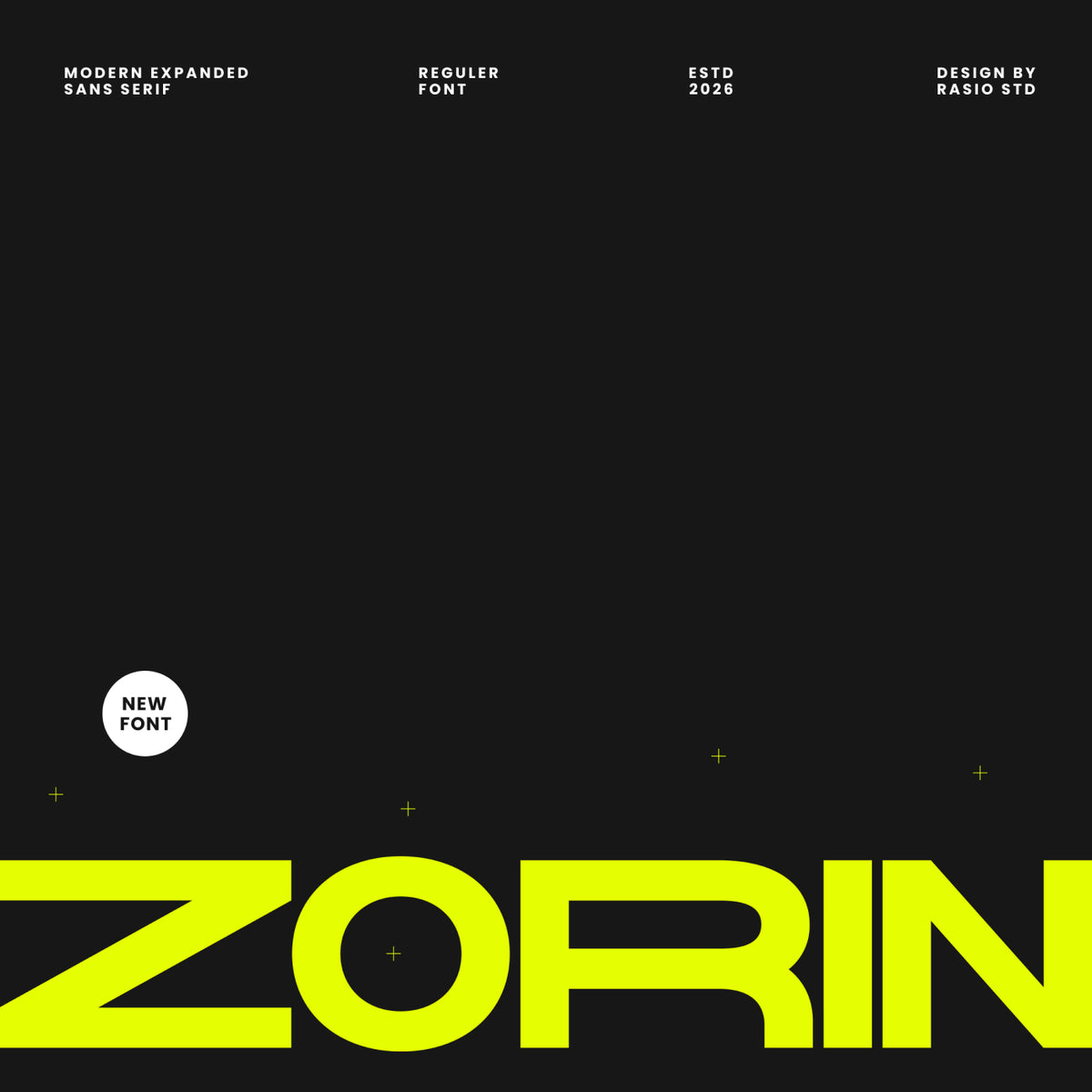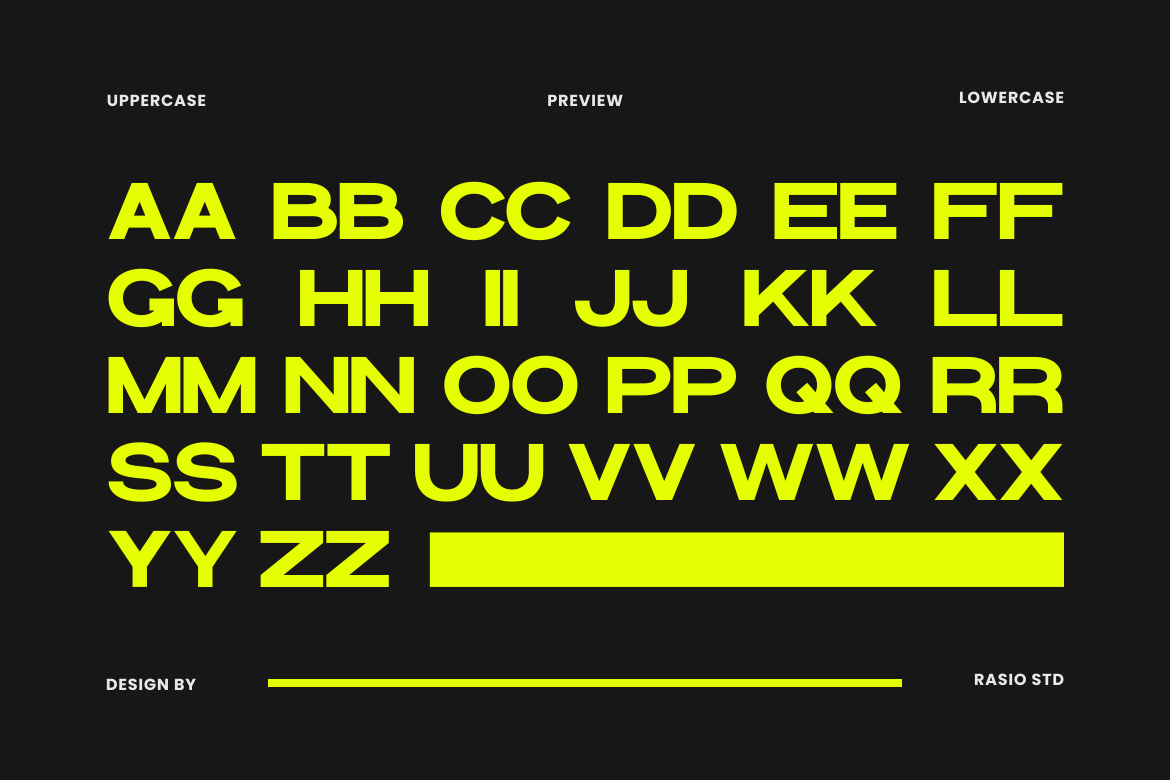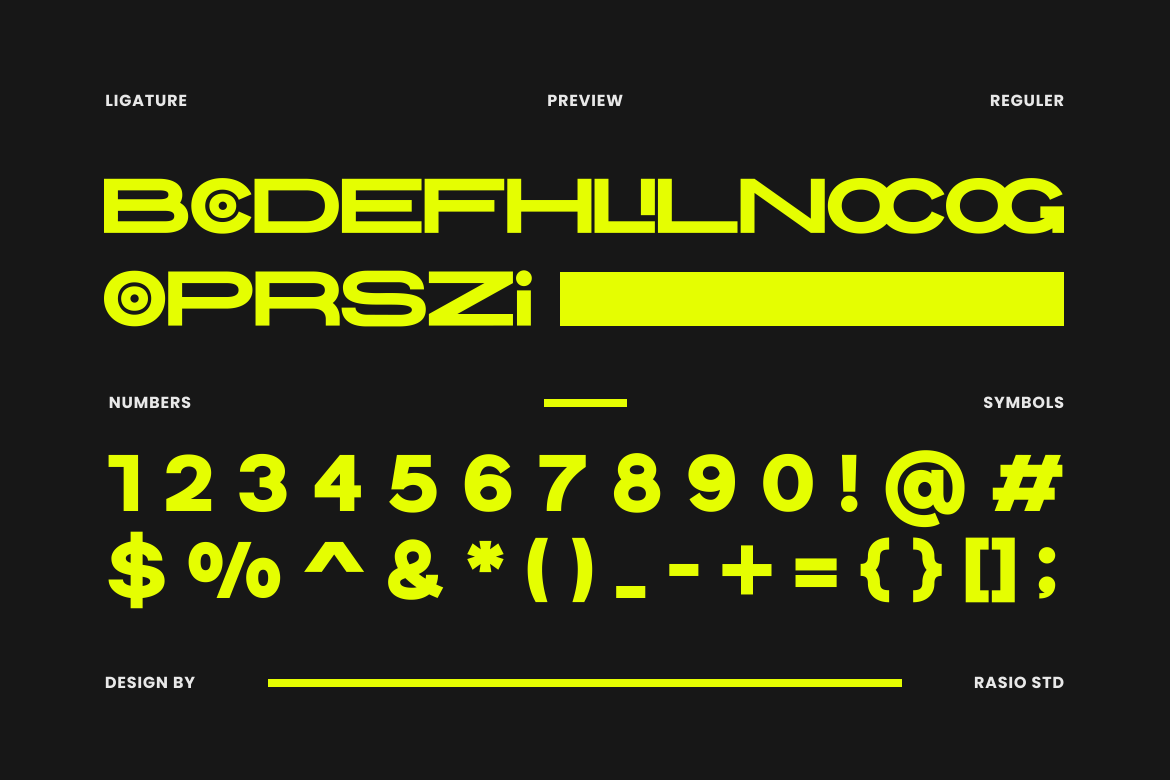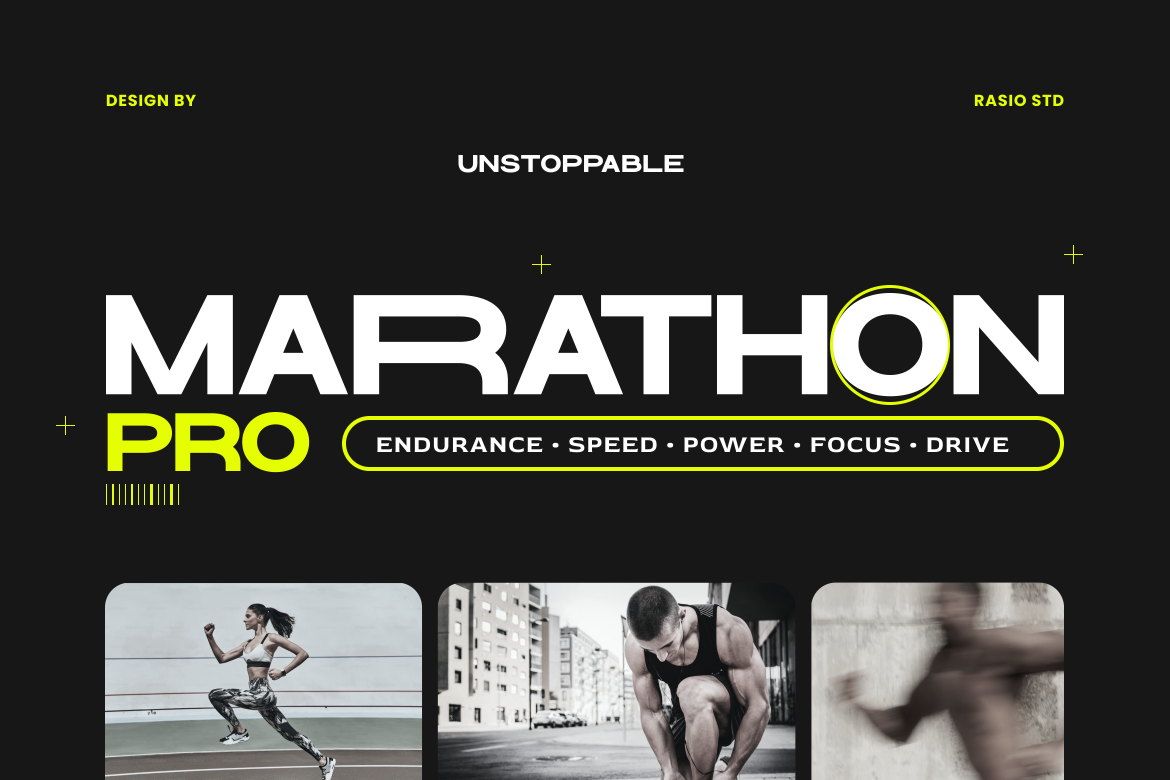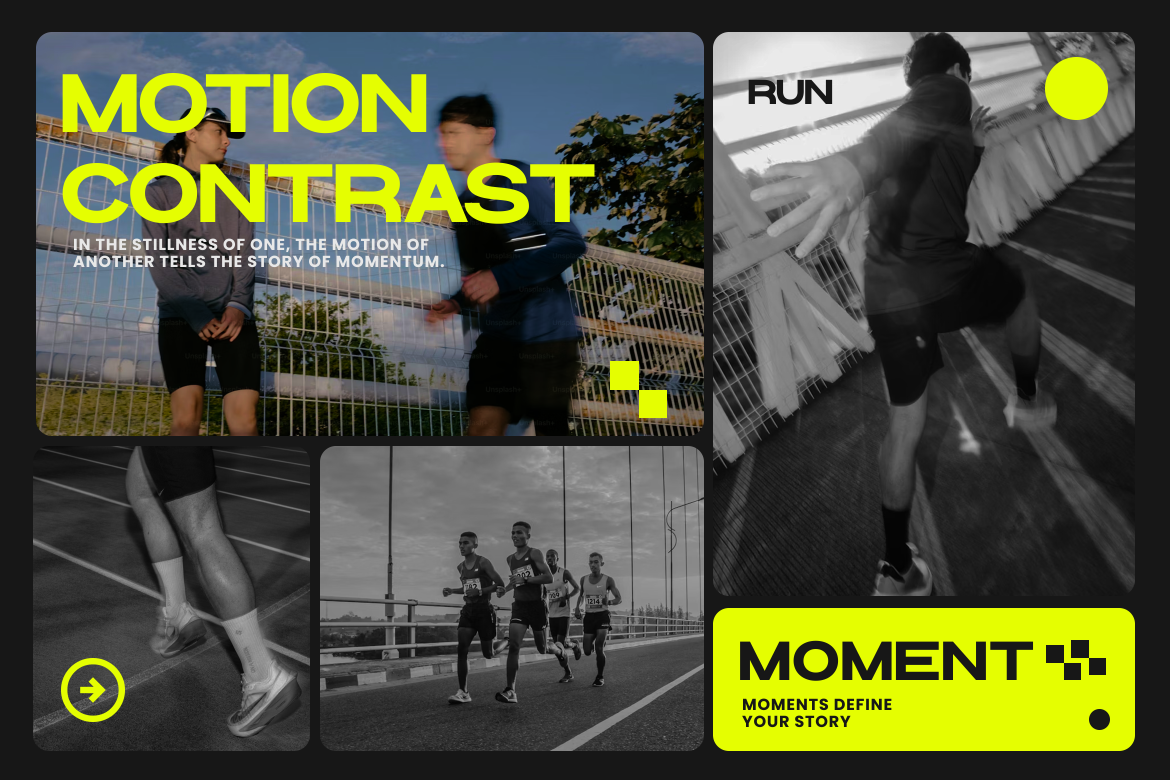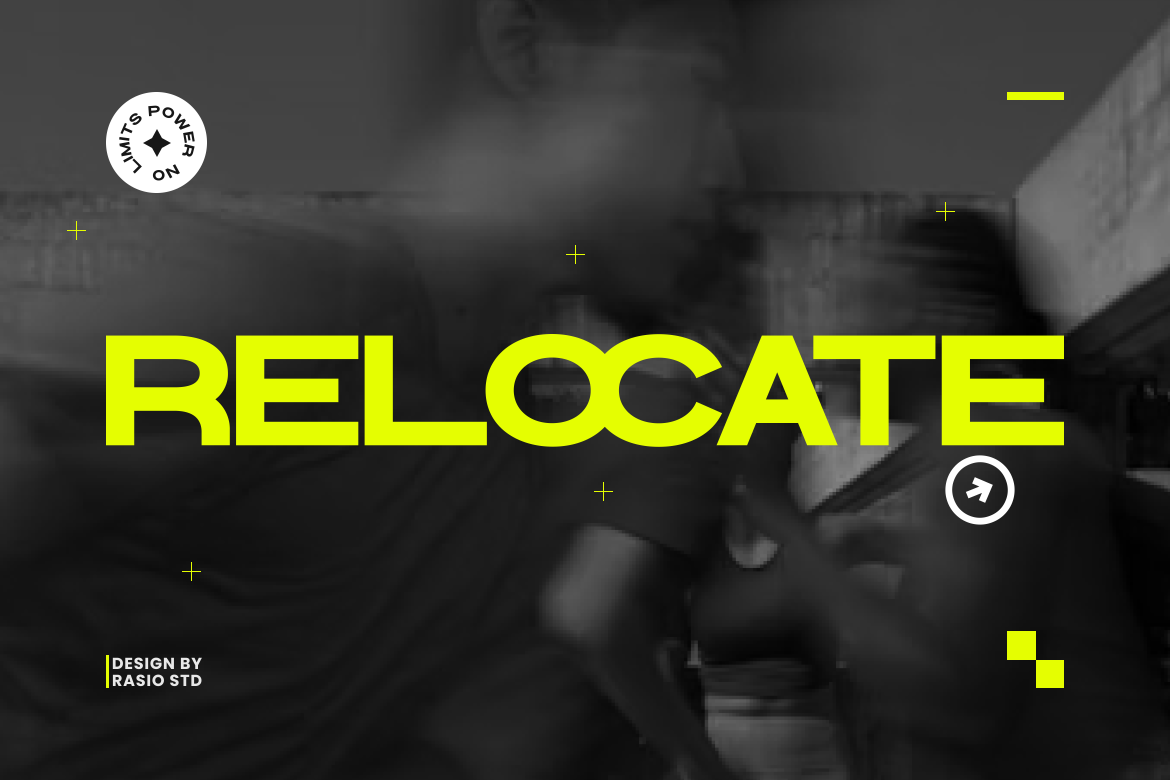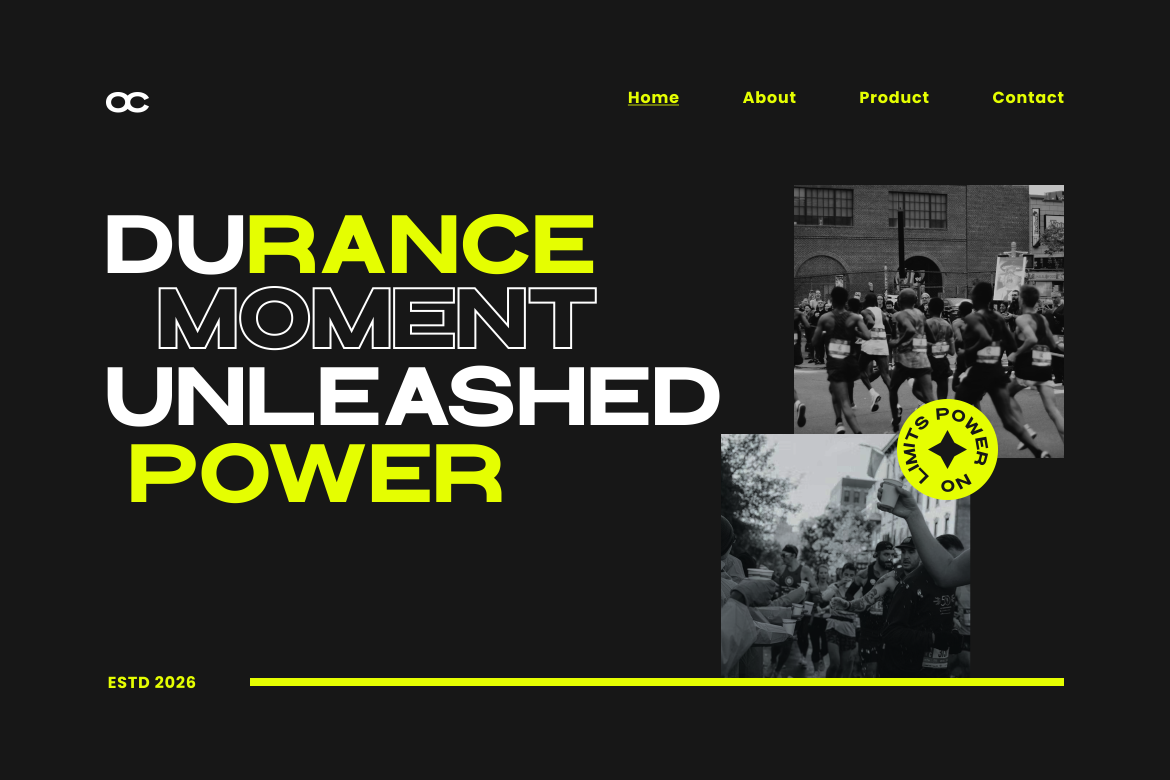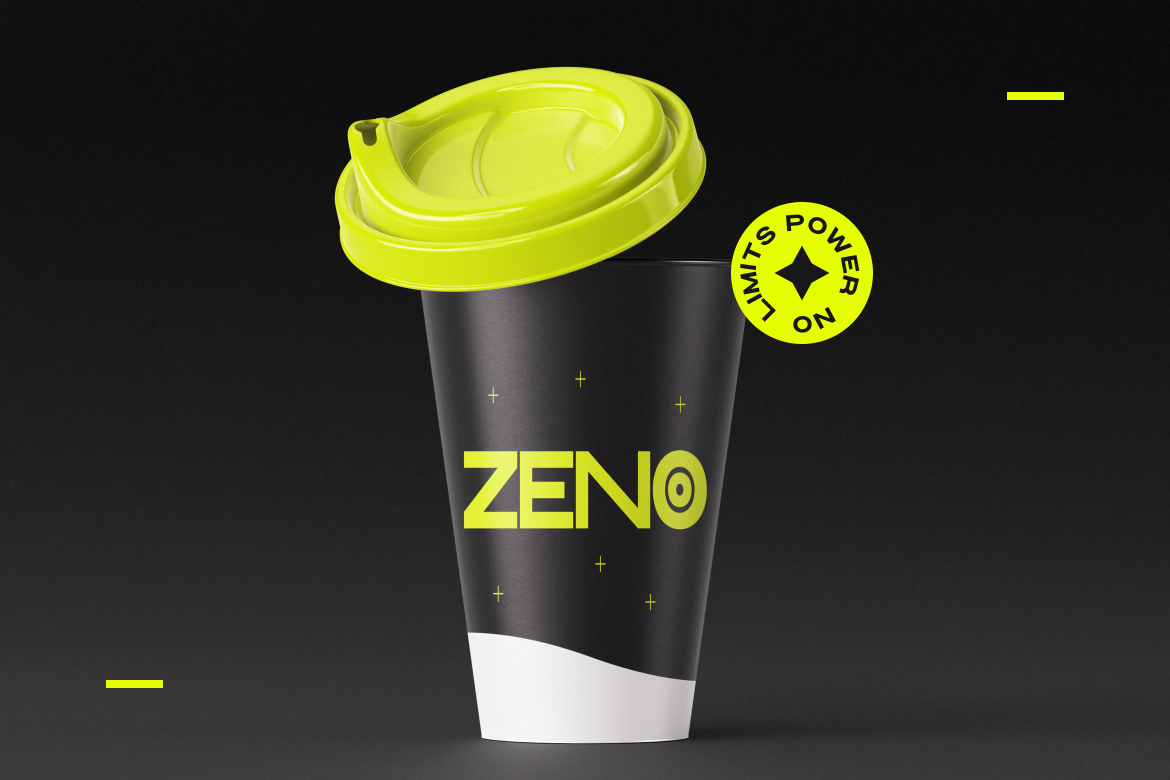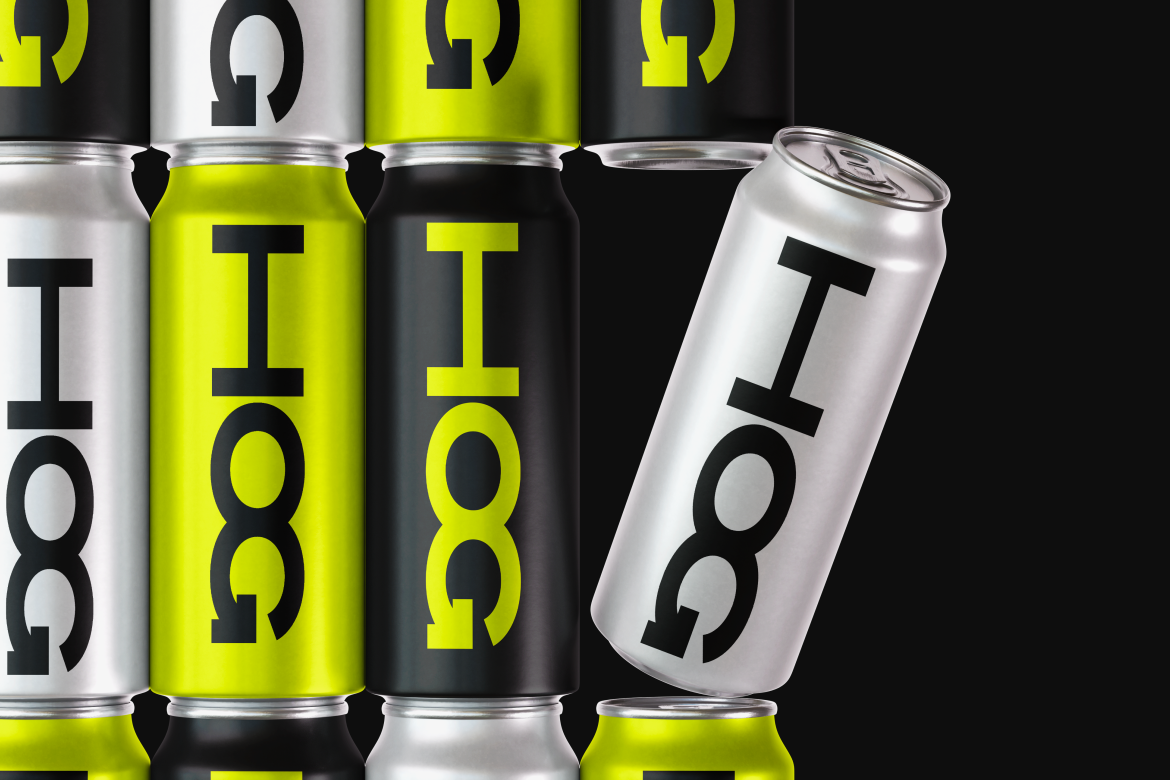
Zorin Modern Expanded Sans Serif Font
Zorin is a bold modern expanded sans serif typeface built to express strength, speed, and high-impact energy. Designed with wide proportions, clean geometric construction, and confident stroke weight, this typeface delivers a powerful visual presence across digital and print platforms. Its expanded structure enhances readability at large sizes while maintaining a sleek and contemporary feel.
Relevance and Use Cases is perfect for sports branding, athletic apparel, fitness campaigns, esports graphics, tech startups, streetwear labels, event posters, bold social media content, and modern website headers. Its wide and assertive design makes it perfect for projects that demand visibility, impact, and confident contemporary style.
Ligatures Supports
Zorin is a bold, expanded modern sans serif typeface with wide proportions, geometric construction, and ligature support. It includes uppercase and lowercase characters, numerals, and punctuation, available in OTF, TTF, and WOFF formats.